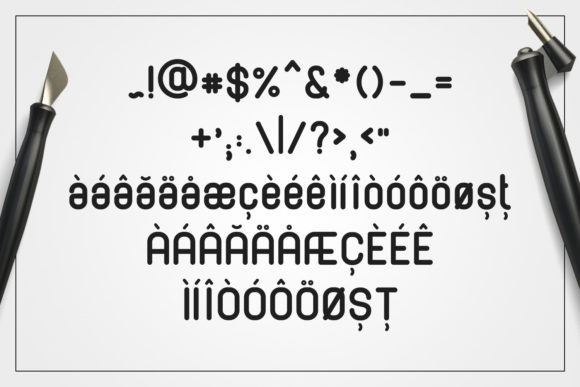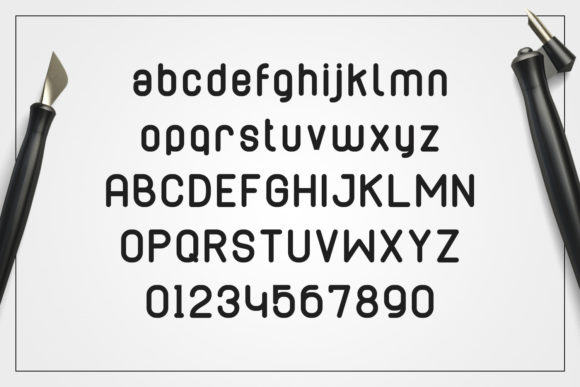
Cabo Rounded Bold Font: The Ultimate Design Companion
In the world of typography, a font can make or break a design. With so many options available, it can be overwhelming to choose the perfect one. However, if you’re looking for a clean, adaptable, and simple sans serif font, look no further than Cabo Rounded Bold. This versatile font is suitable for a wide variety of designs, making it an excellent addition to any designer’s toolkit.
What is Cabo Rounded Bold?
Cabo Rounded Bold is a modern sans serif font that boasts a neat and straightforward style. Its clean lines and rounded edges give it a friendly and approachable feel, making it perfect for designs that require a subtle yet effective typography. The font’s simplicity is its greatest strength, allowing it to blend seamlessly into various design contexts.
Key Features of Cabo Rounded Bold
• Clean and Simple Design: Cabo Rounded Bold’s minimalist approach makes it an excellent choice for designs that require a subtle typography.
• Adaptable: This font is highly versatile and can be used in a wide range of designs, from digital media to print materials.
• Sans Serif: The font’s sans serif design ensures that it remains legible even at small font sizes.
• Rounded Edges: The rounded edges give the font a friendly and approachable feel, making it perfect for designs that require a softer touch.
Use Cases for Cabo Rounded Bold
Cabo Rounded Bold’s adaptability makes it an excellent choice for various design projects. Here are some use cases where this font truly shines:
• Digital Media: Use Cabo Rounded Bold for website headers, blog posts, and social media graphics to create a clean and modern look.
• Print Materials: This font is perfect for brochures, flyers, and business cards, where a professional yet approachable tone is required.
• Branding and Logo Design: Cabo Rounded Bold’s simplicity and elegance make it an excellent choice for logos and brand identities.
• Packaging Design: The font’s clean lines and rounded edges make it suitable for packaging designs that require a modern and sophisticated look.
Why Choose Cabo Rounded Bold?
With so many fonts available, why should you choose Cabo Rounded Bold? Here are a few reasons why this font stands out:
• Legibility: The font’s clean design and rounded edges ensure that it remains legible even at small font sizes.
• Versatility: Cabo Rounded Bold can be used in a wide range of designs, making it an excellent addition to any designer’s toolkit.
• Timeless: The font’s simplicity ensures that it won’t go out of style anytime soon, making it a great investment for designers.
Tips for Using Cabo Rounded Bold
To get the most out of Cabo Rounded Bold, here are a few tips to keep in mind:
• Pair it with Other Fonts: Experiment with pairing Cabo Rounded Bold with other fonts to create a unique and visually appealing typography.
• Adjust Font Sizes: Play with different font sizes to create visual hierarchy and emphasize important information.
• Use it Consistently: Use Cabo Rounded Bold consistently throughout your design to create a cohesive and professional look.
Cabo Rounded Bold is an excellent addition to any designer’s toolkit. Its clean and adaptable design makes it suitable for a wide range of designs, from digital media to print materials. With its simplicity, elegance, and versatility, this font has the potential to become your go-to font for all your design needs. So why not give Cabo Rounded Bold a try and experience the power of clean and simple typography?